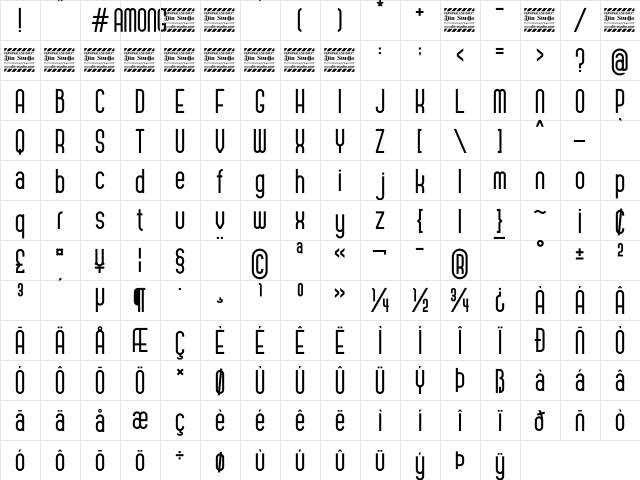
Among Personal Use Regular
| Designer | Donis Miftahudin |
Design Context for Among Personal Use Typeface
Among Personal Use takes a measured approach to typography — its balanced proportions and neutral character make it a reliable workhorse for both digital and print work.